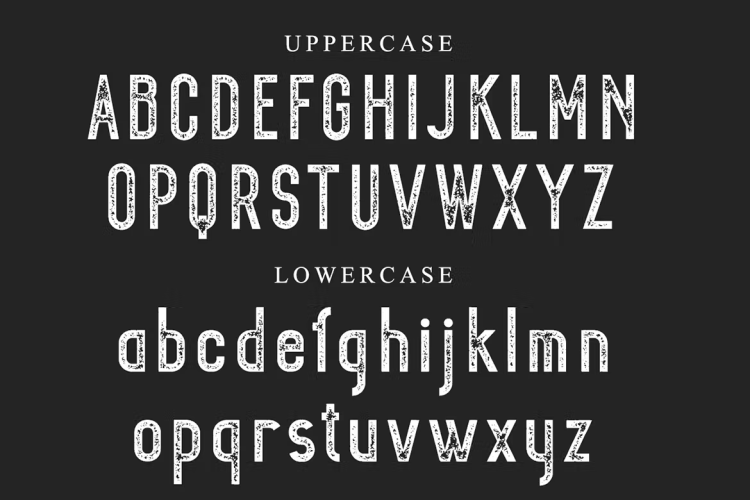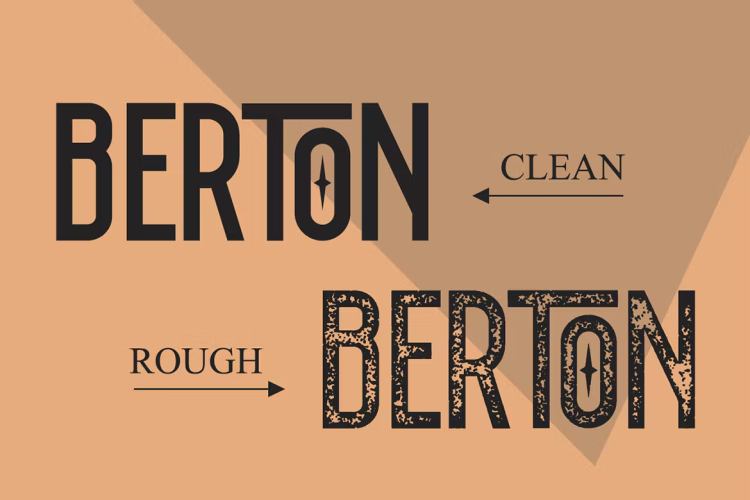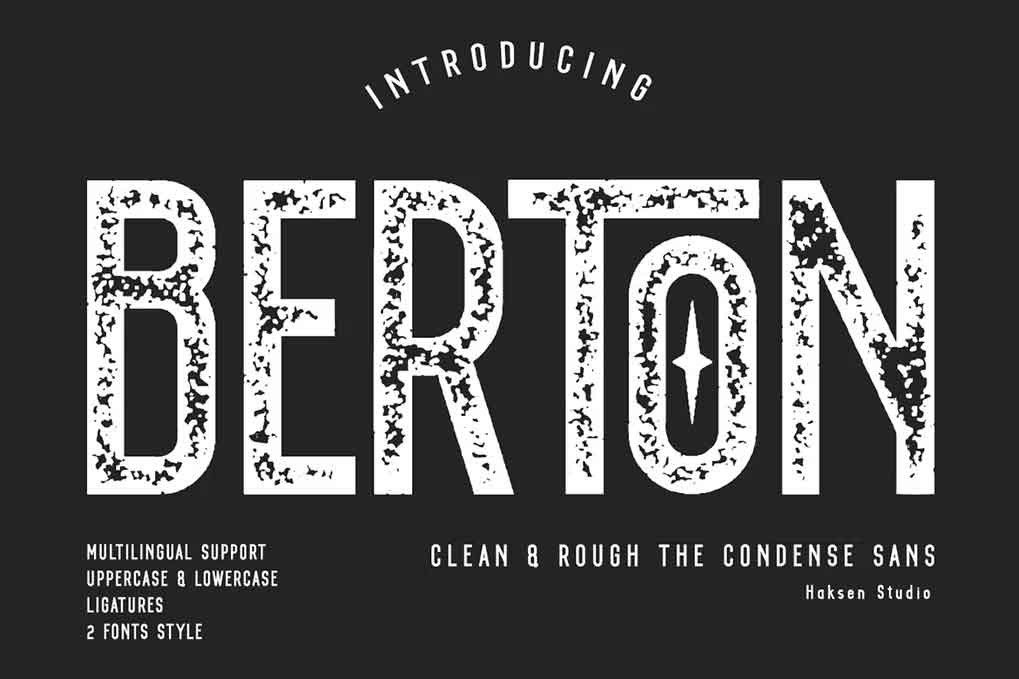
BERTON Font
Introducing, BERTON – A condensed display typeface. The condensed style make this font looks great and standout for tittle, headline, logo, etc. There are 2 styles, regular and rough/stamp. Perfectly to be applied to the other various formal forms such as invitations, labels, logos, magazines, books, greeting / wedding cards, packaging, fashion, make up, stationery, novels, labels or any type of advertising purpose.
Where BERTON Font works best
BERTON Font stays legible at small sizes, which makes it a strong choice for navigation, buttons and dashboards in web design and app interfaces.
Clean sans serifs like BERTON Font are the default language of SaaS, fintech and product branding.
What is BERTON Font good for?
BERTON Font is a Sans Serif Fonts typeface tagged Branding, Condensed, Display, Editorial. It works well for headlines, logos, posters, social media graphics and branding projects that need a distinctive sans serif fonts look.